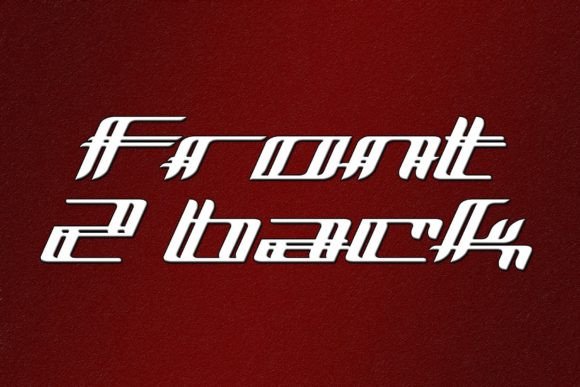
Welcome to the realm of captivating typography, where Front 2 Back Font reigns supreme – a display font that's the perfect pick for your design projects yearning for a distinct and contemporary touch. Enter the world of visual splendor with a font that's guaranteed to turn heads and leave a lasting impression.
Front 2 Back Font is not your average font; it's a work of art that transforms words into captivating visuals, adding a layer of depth and dimension to your creative expressions. This display font is a masterpiece crafted by denestudios, a visionary team of font artisans known for their ability to create fonts that dance off the page.
With its assortment of spectacular glyphs, Front 2 Back Font stands out from the crowd. Its meticulously designed characters exude a unique charm that's sure to create a striking visual impact in your designs. This font is perfect for creating logos, posters, flyers, brochures, social media posts, and a myriad of other marketing materials. It's the perfect choice for designers, marketers, and content creators who want to make a statement with their visuals.
Imagine the possibilities when you unleash the power of Front 2 Back Font in your projects. It's like having a secret weapon in your creative arsenal, allowing you to effortlessly elevate your designs to the next level. So, what are you waiting for? Embark on a typographical adventure with Front 2 Back Font today and let your creativity shine like never before.